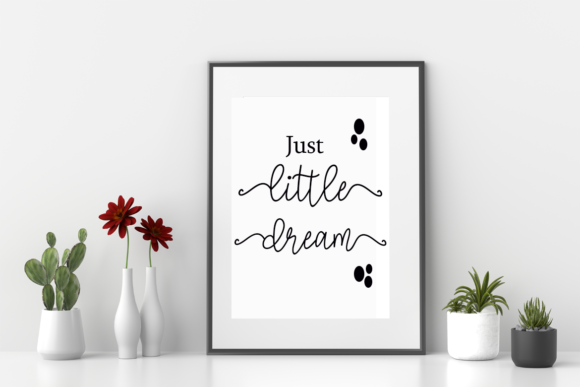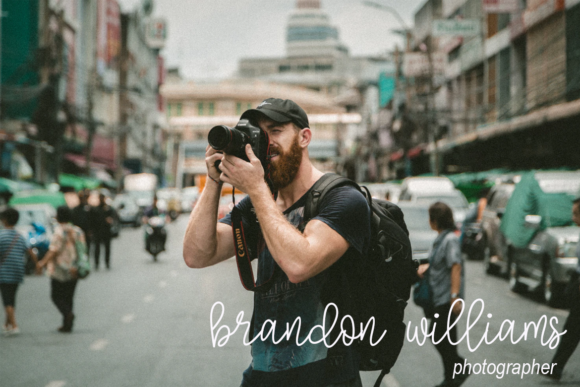
Absolute Font
db-ku.com - Script & Handwritten -- Absolute is a handwritten font which feels incredibly elegant and flowing. It looks stunning on wedding invitations, thank you cards, quotes, greeting cards, logos, business cards and every other design which needs a handwritten touch.